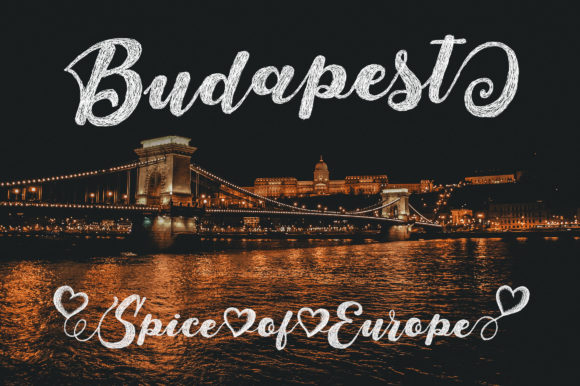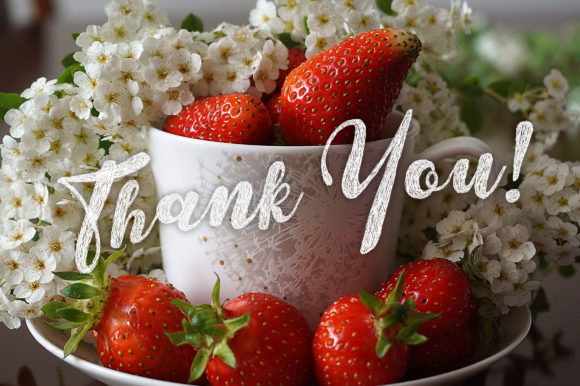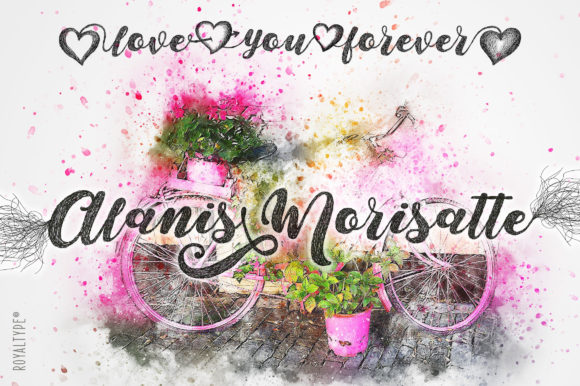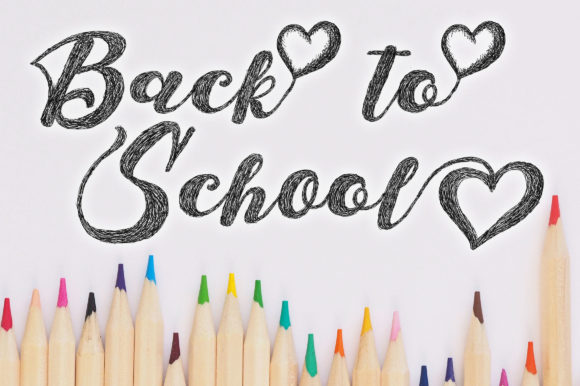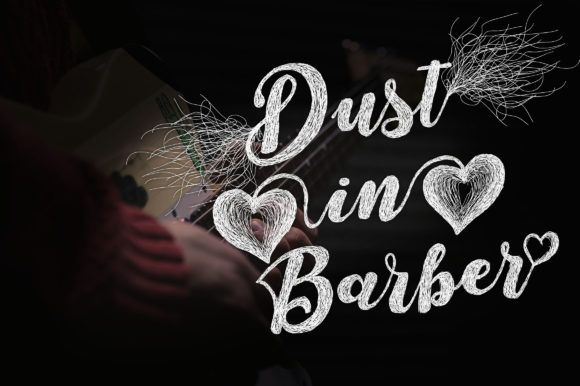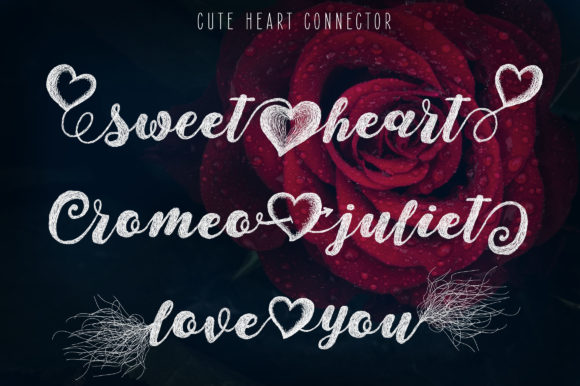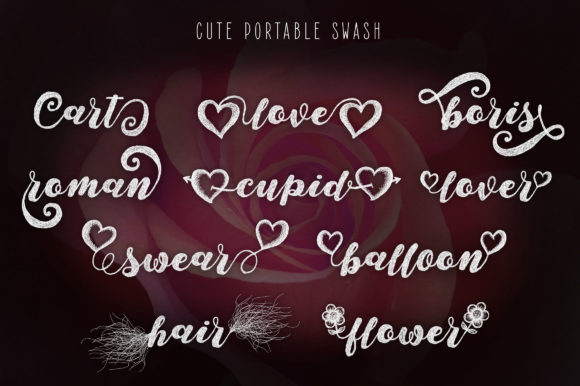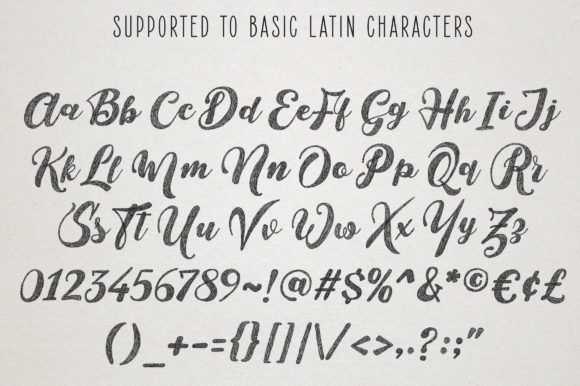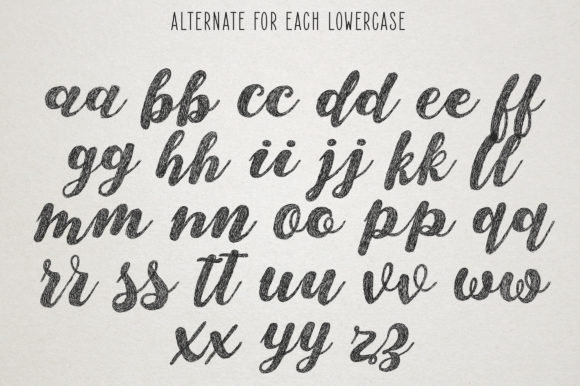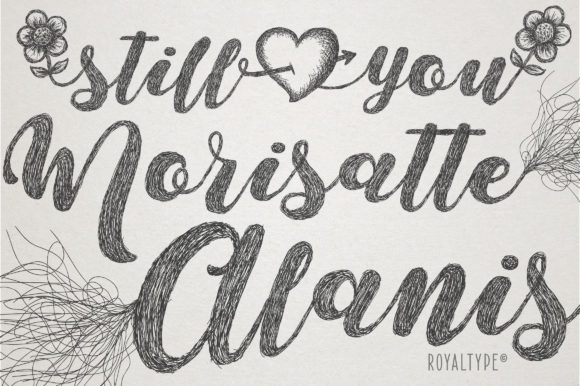
Monstere Font
About Monstere Font
Monstere is a beautiful handwritten font. It features a sketch style that makes it unique. It has cute extras and swashes that will add a romantic touch to your crafting projects! This font is PUA encoded which means you can access all of the cute glyphs and swashes with ease!